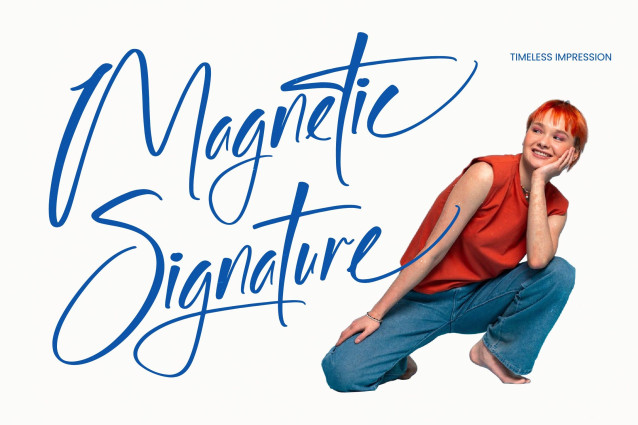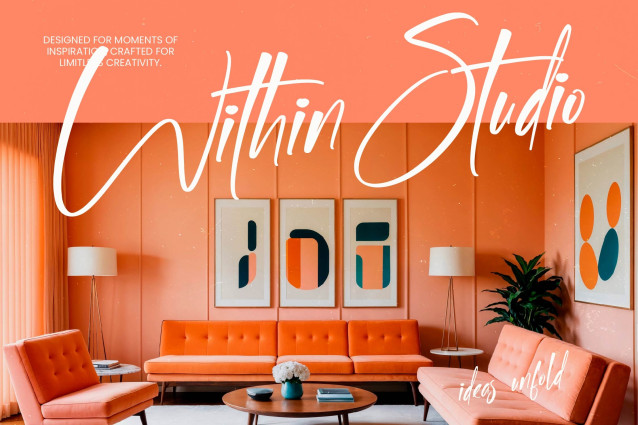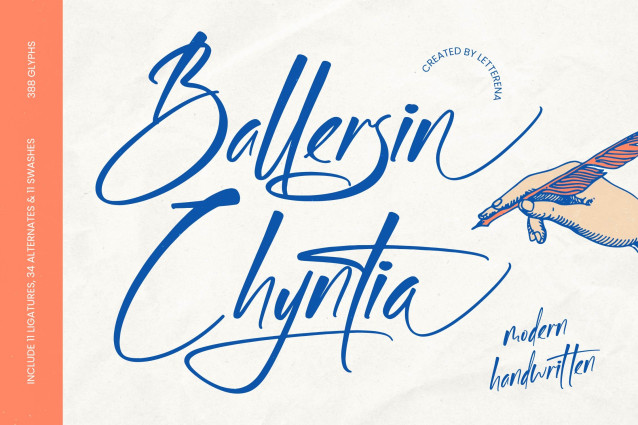
Ballersin Chyntia – Modern Handwritten
Elevate your creative vision with a typeface that embodies sophisticated elegance and fluid artistry. Ballersin Chyntia – Modern Handwritten is a premium script font that captures the essence of refined penmanship with its expressive strokes and organic flow. This typeface offers a perfect balance between modern aesthetics and classic charm, ensuring that every design project radiates a sense of authentic craftsmanship and high-end appeal.
Experience unparalleled creative freedom through a comprehensive set of professional features designed for maximum impact. With over 388 glyphs, including specialized ligatures, alternates, and graceful swashes, Ballersin Chyntia – Modern Handwritten allows designers to create unique, bespoke typography that feels truly custom-made. The natural rhythm and varying line weights provide a dynamic visual texture that commands attention while maintaining a sophisticated legibility.